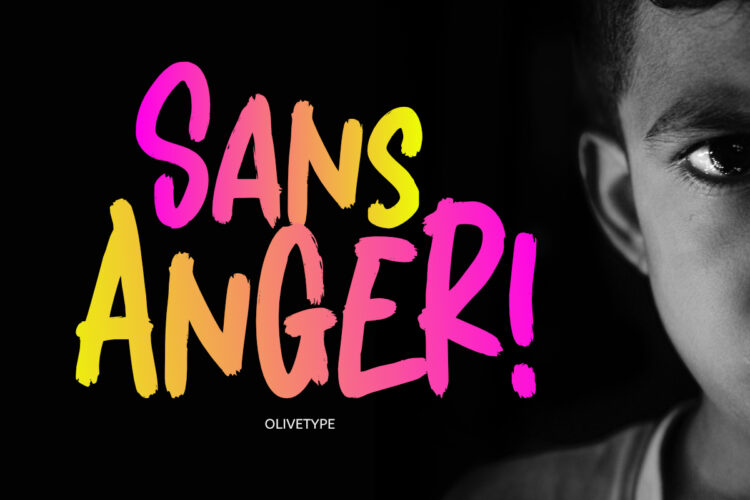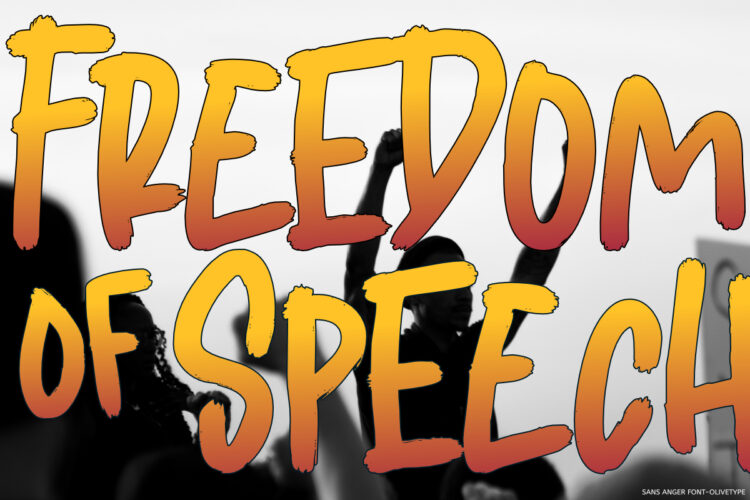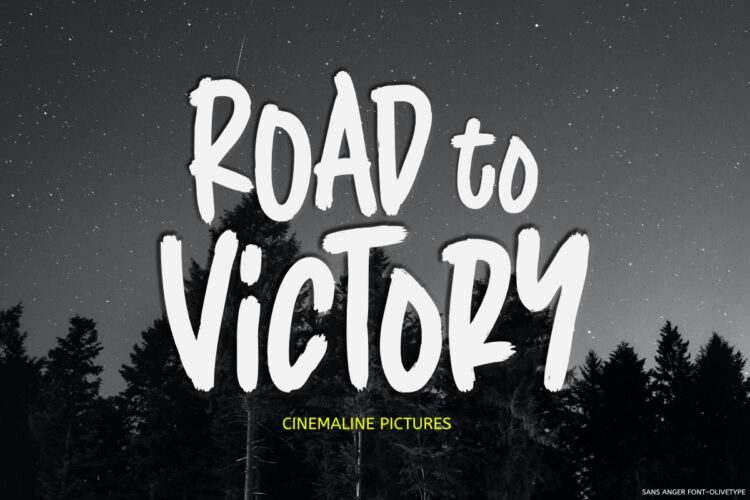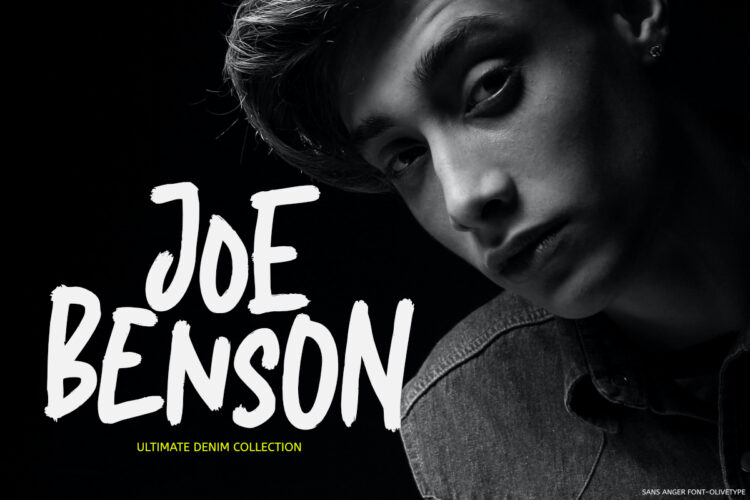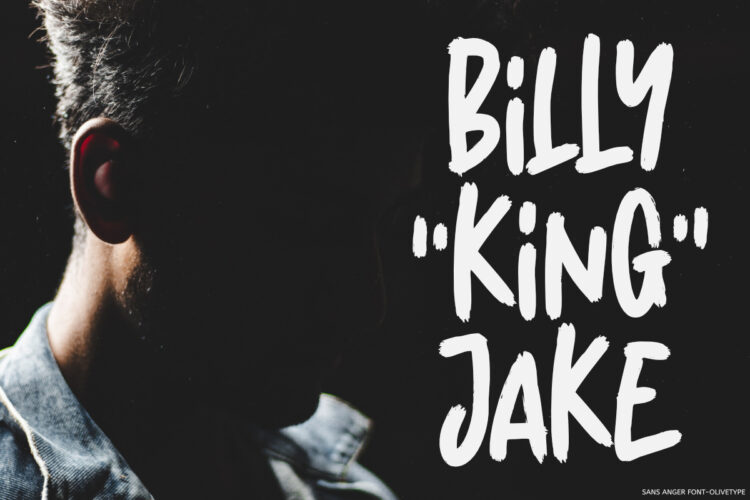
Sans Anger is a stunning and authentic brush font with a natural feel. Get inspired by its whimsical style and turn any design project into a true stand-out.